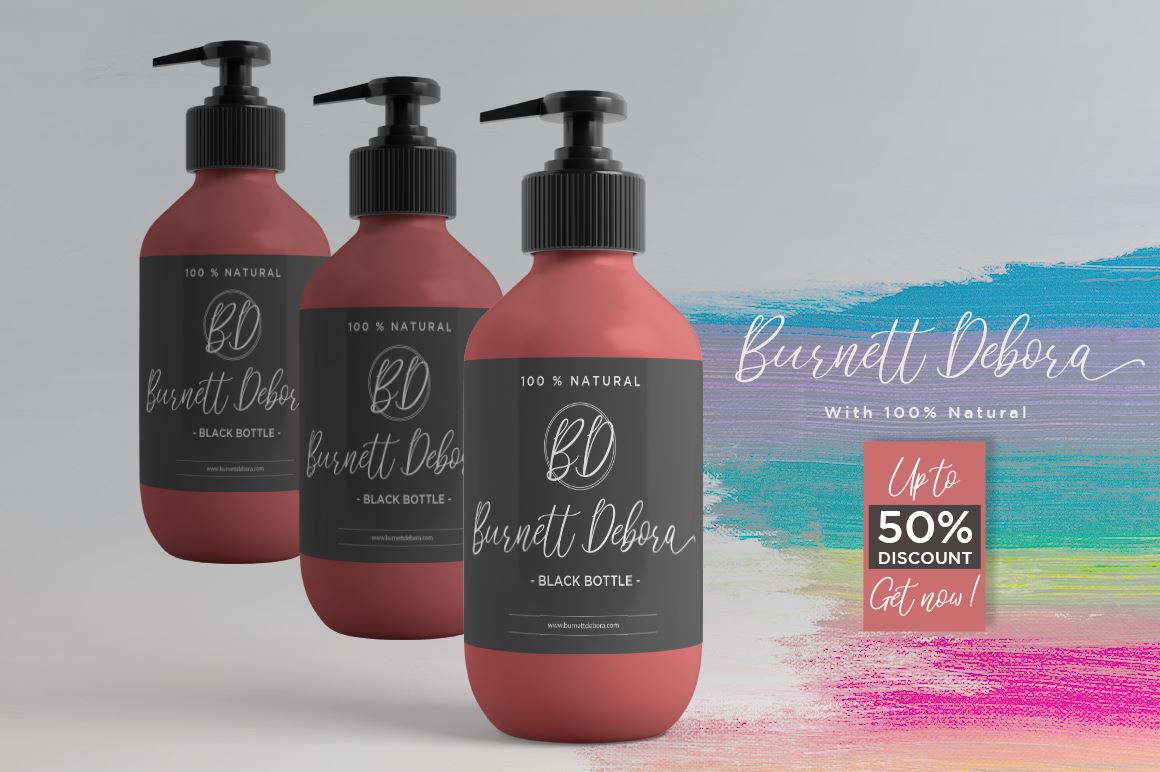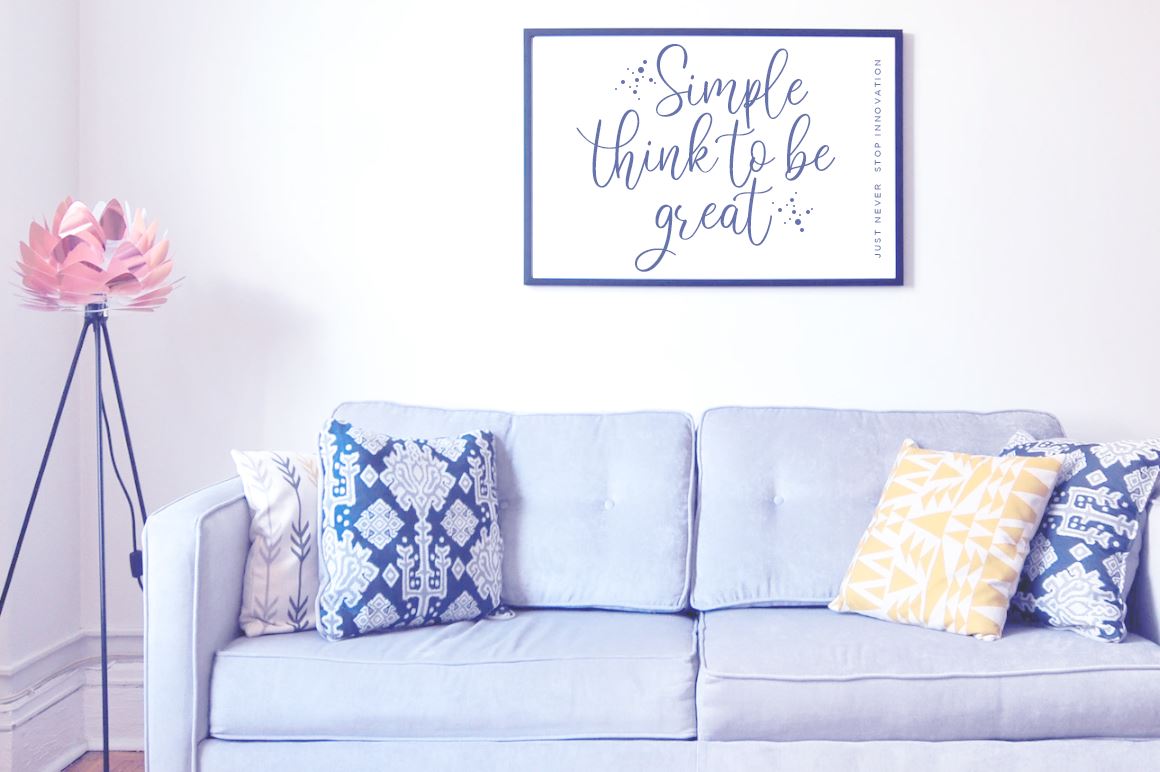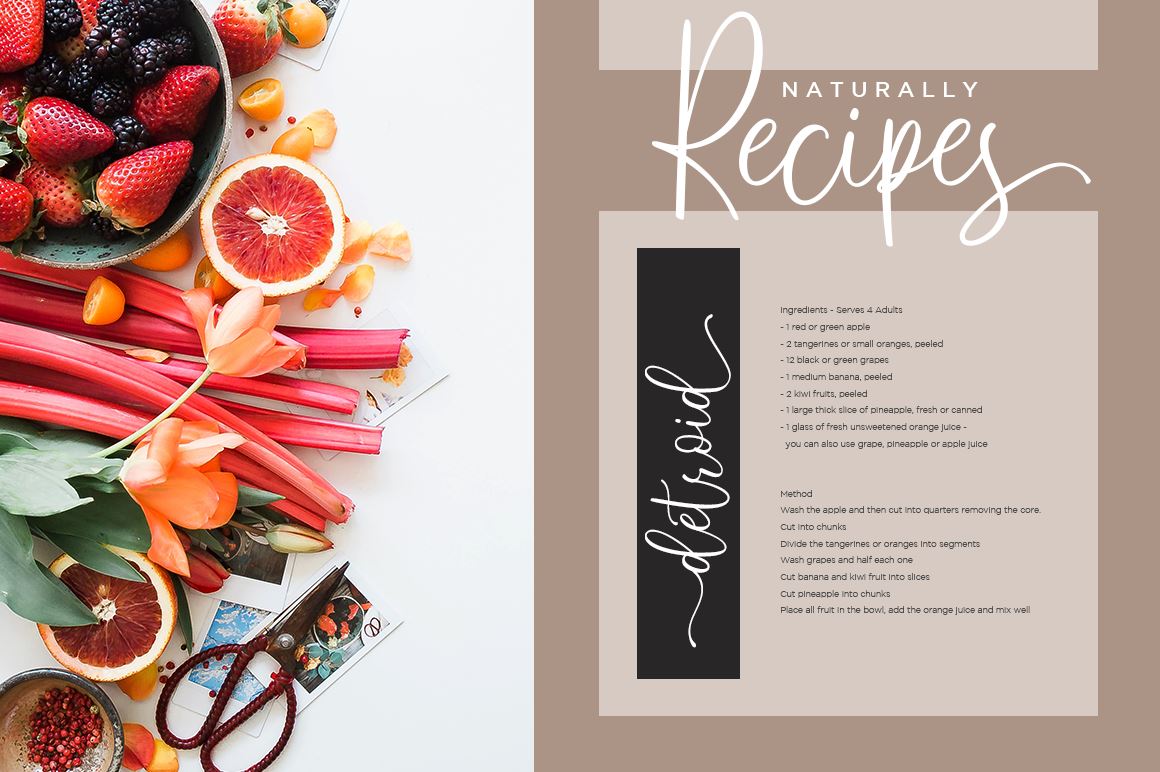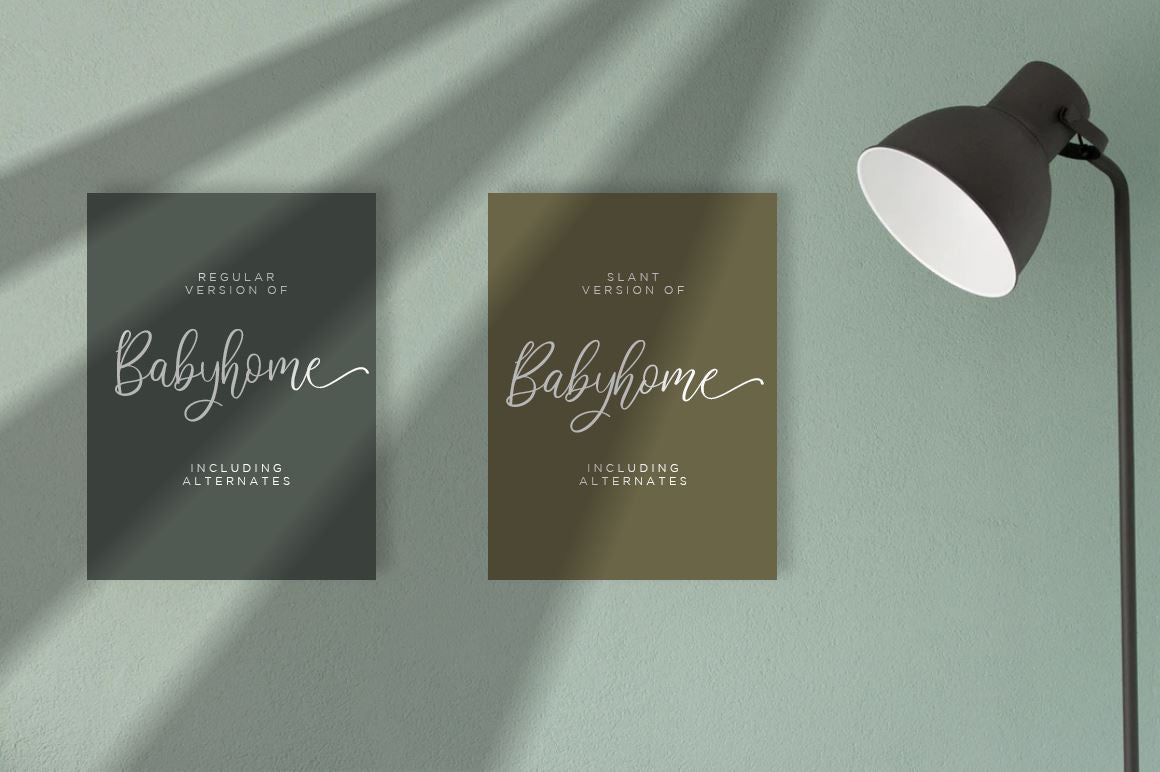
About Babyhome Elegant Script in Two Version
Babyhome Elegant Script Introducing the elegant Babyhome Script Font! Contain of : Babyhome (TTF + OTF + WOFF) and Babyhome 2 / Slant (TTF + OTF + WOFF) Accessing the swashes / opentype features / glyphs: You can access the swashes and alternates from the ‘Glyphs Panel’ in these programs. More Questions? Here are some (potential) answers! Cheers!